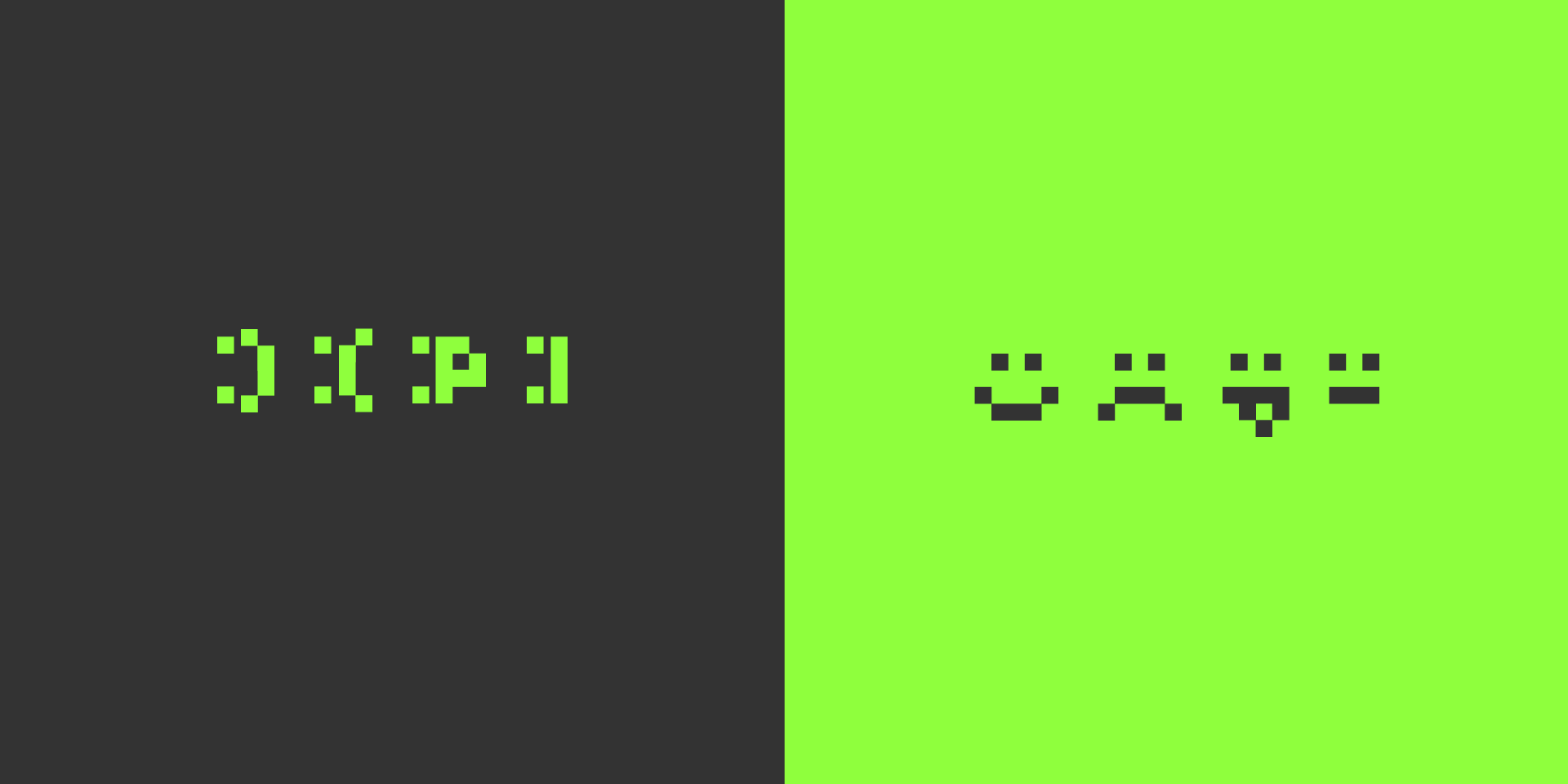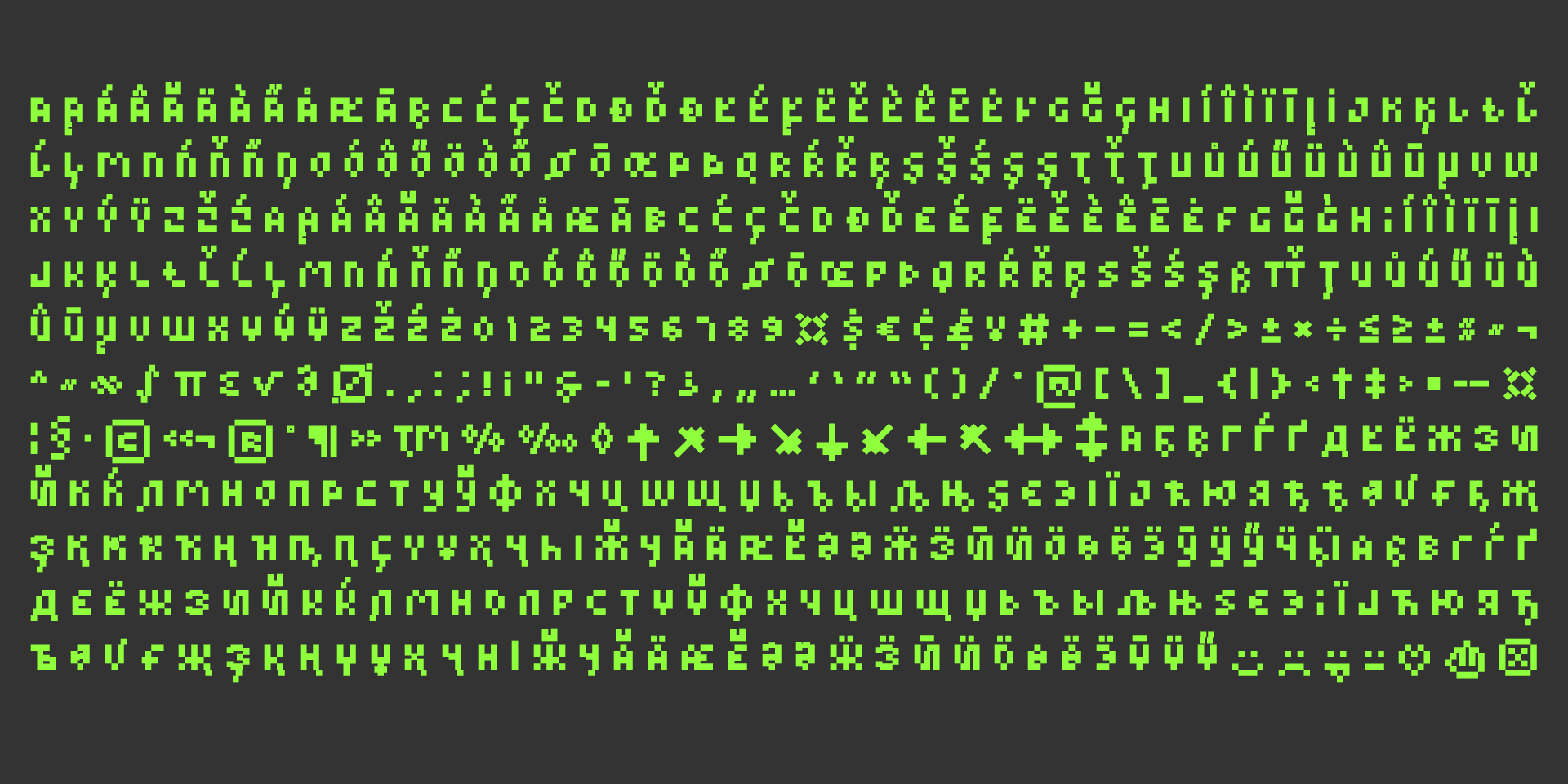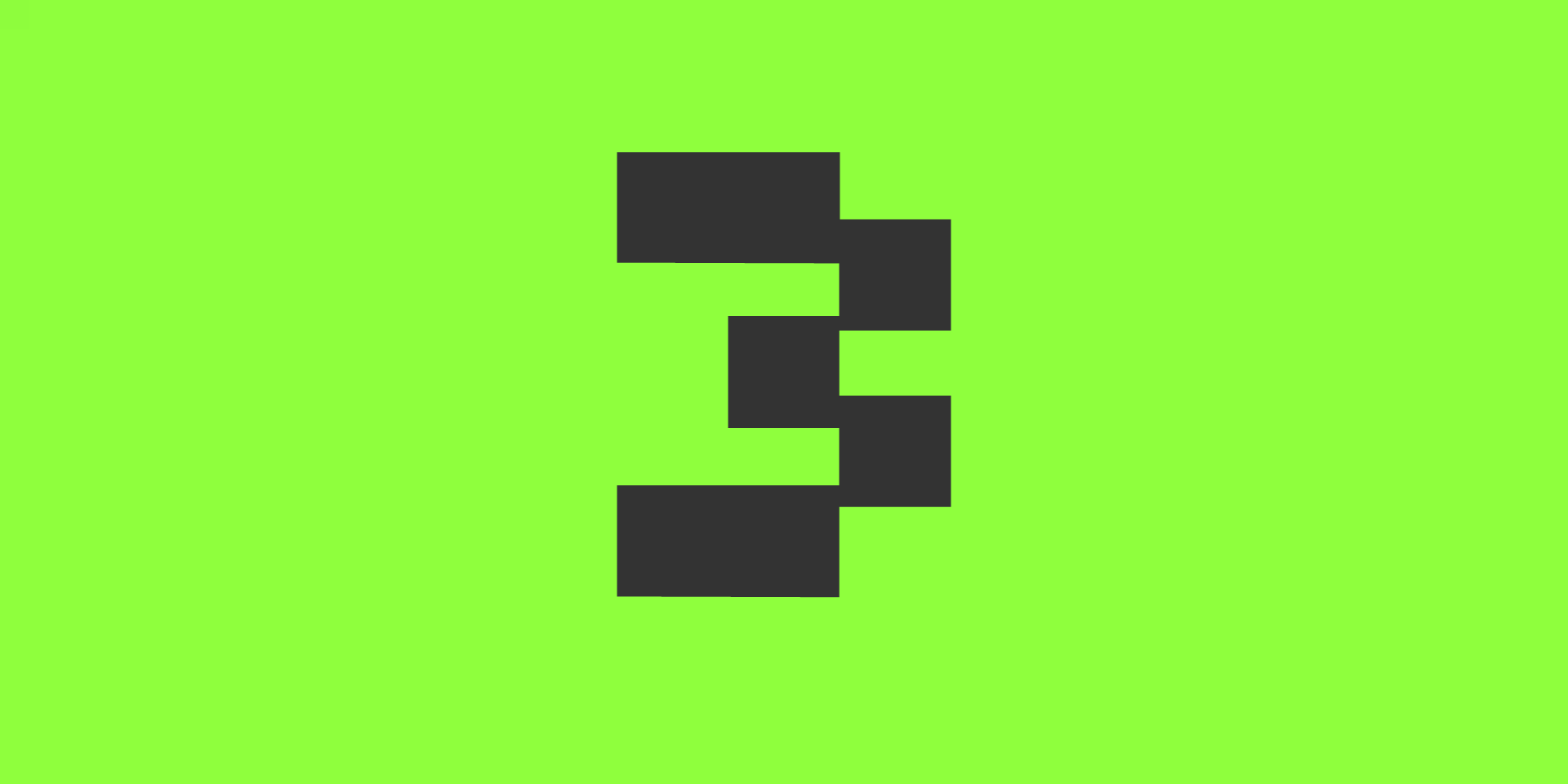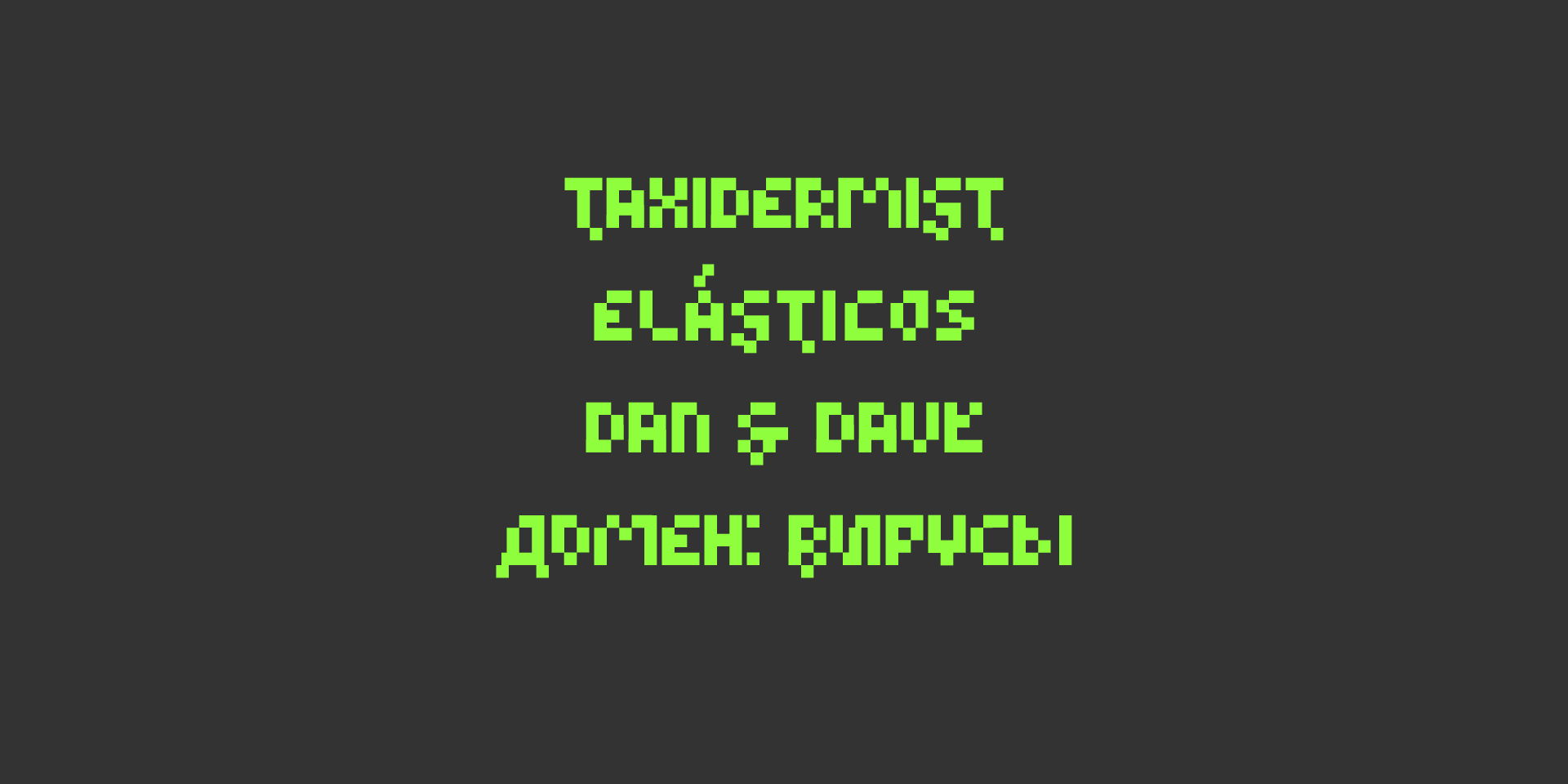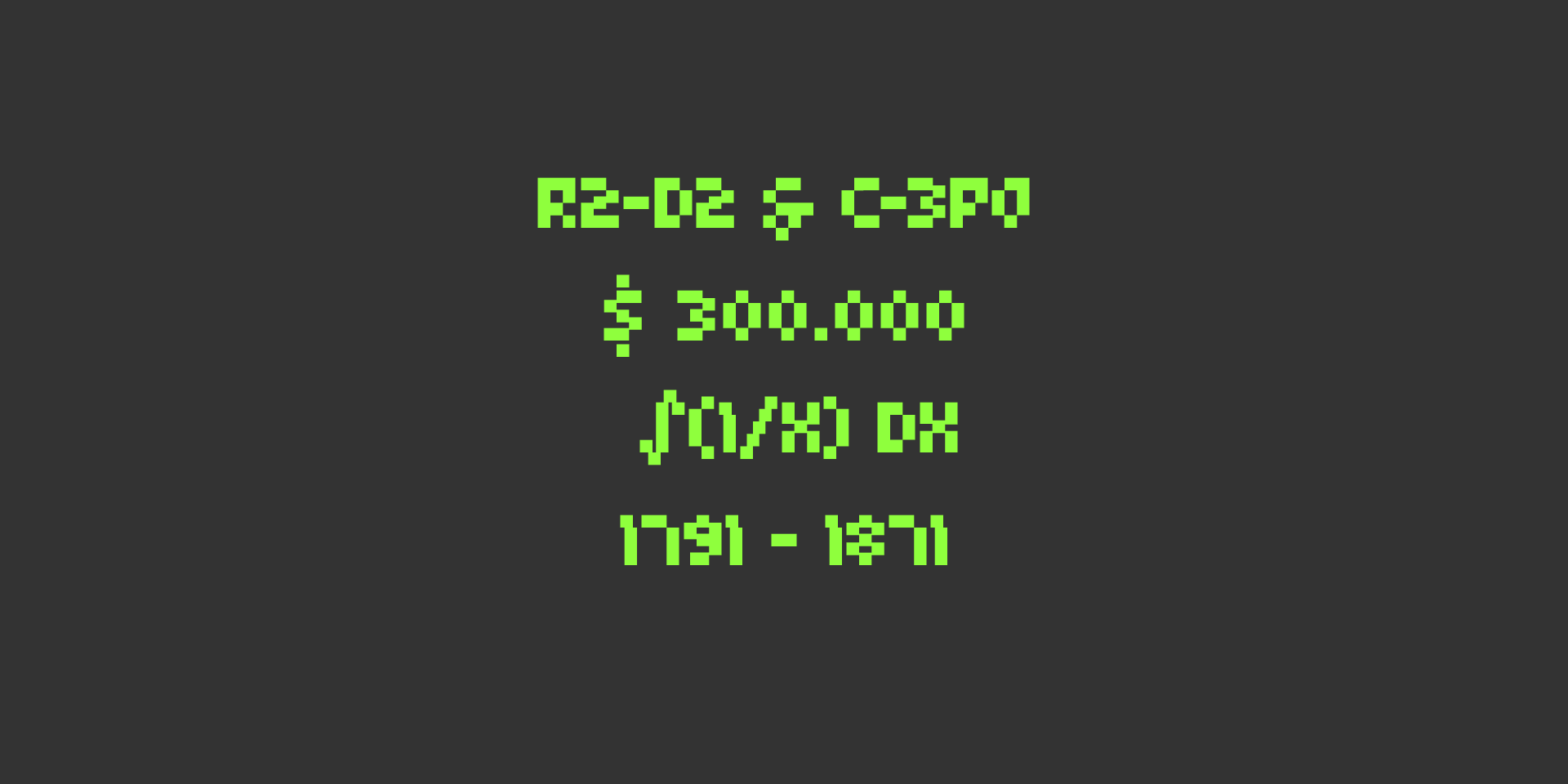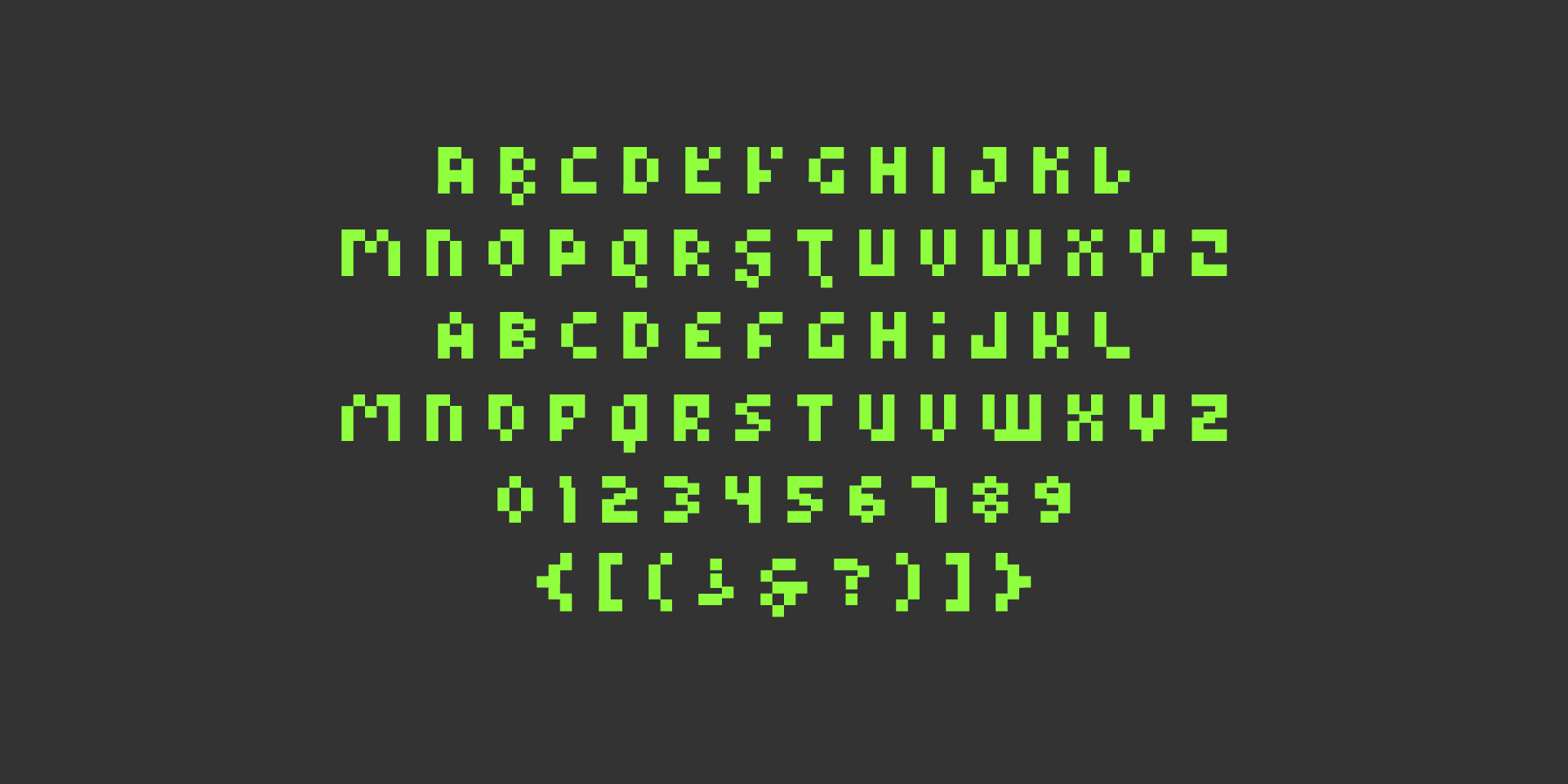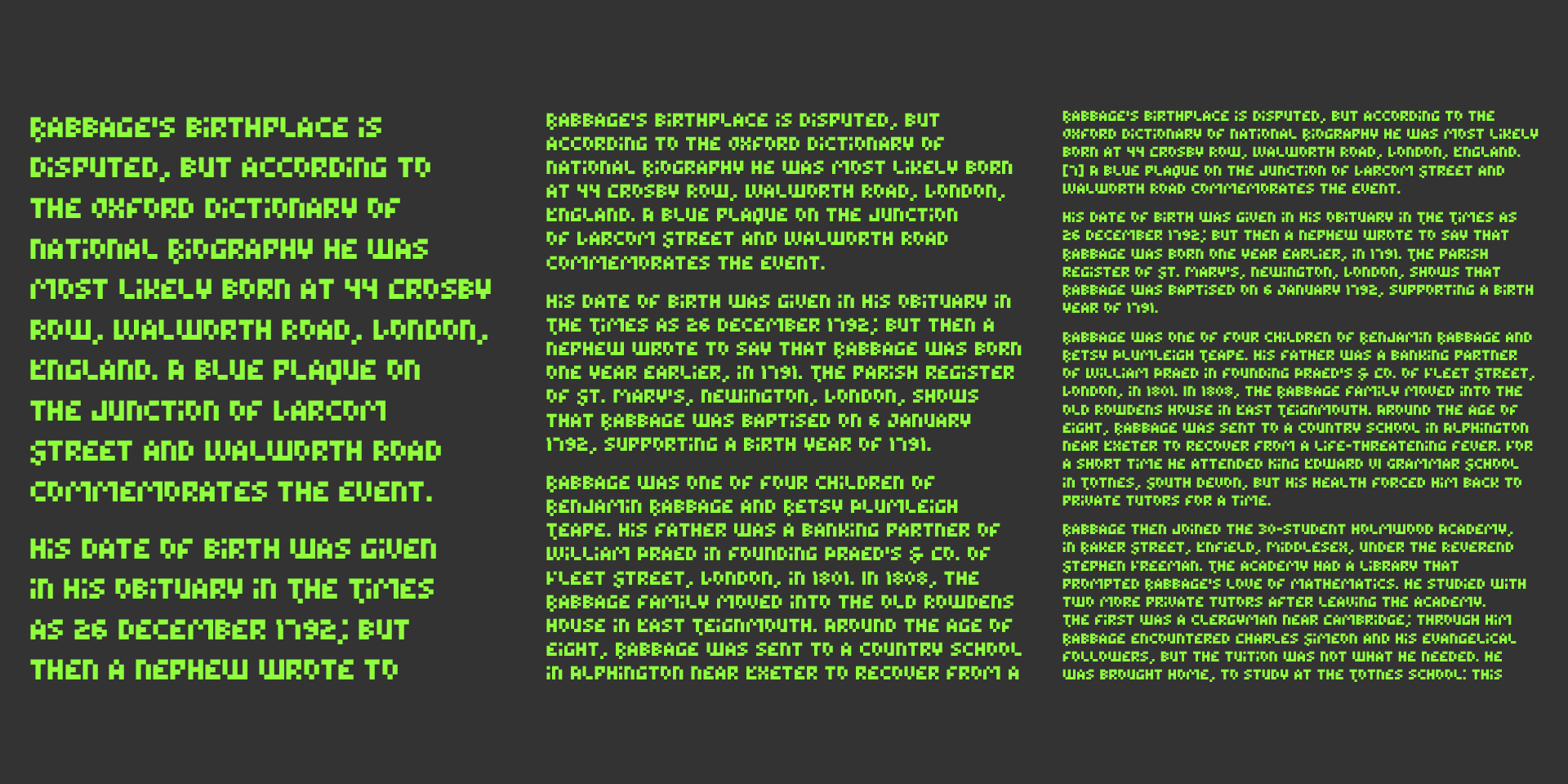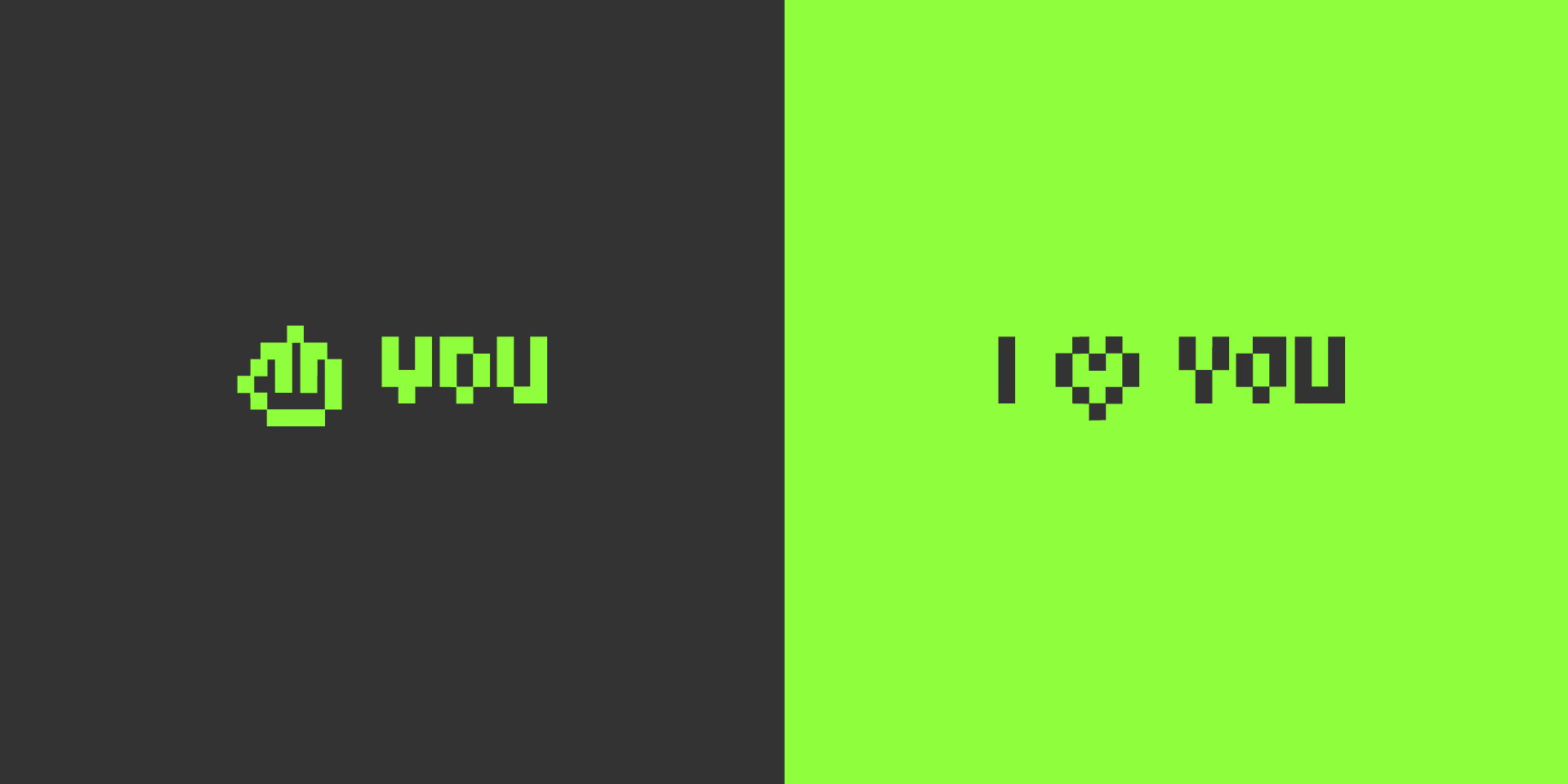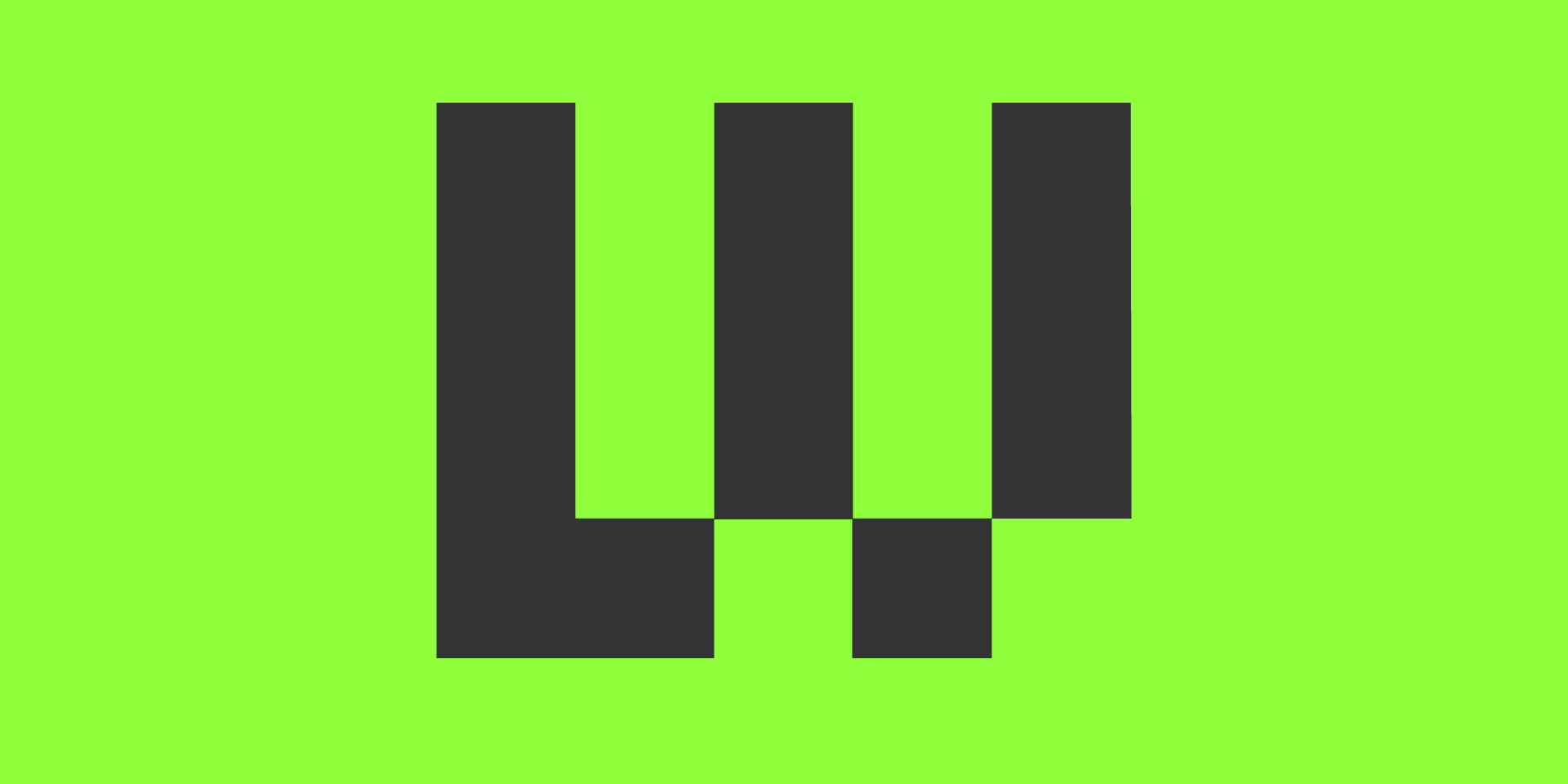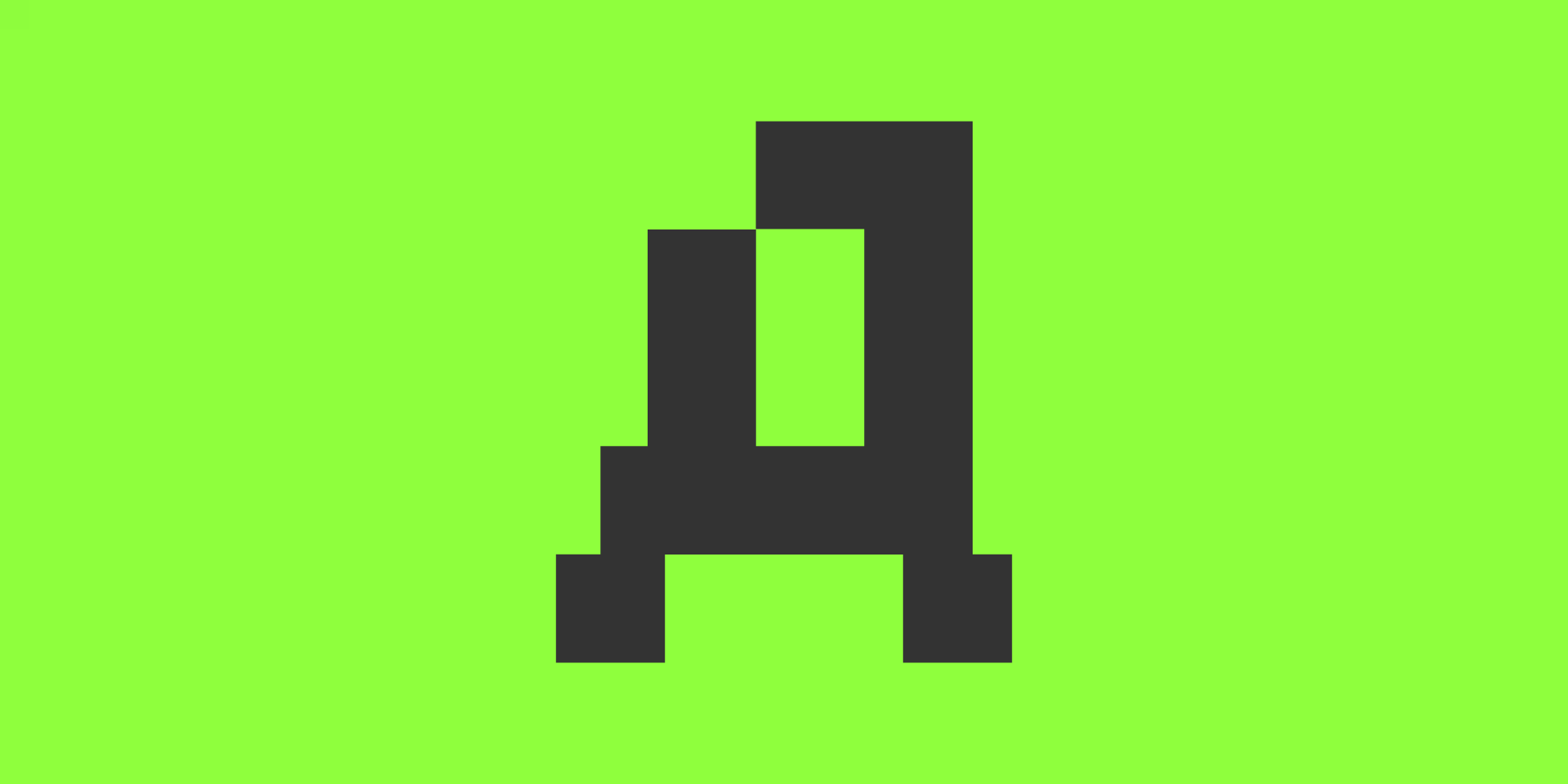
Protocol
Supported Languages: Afrikaans, Albanian, Bosnian, Bulgarian, Catalan, Croatian, Czech, Danish, Dutch, English, Estonian, Finnish, French, German, Hungarian, Icelandic, Italian, Latvian, Lithuanian, Macedonian, Maltese, Norwegian, Polish, Portuguese, Romanian, Russian, Serbian, Slovak, Slovenian, Spanish, Swedish, Turkish, Ukrainian and Zulu